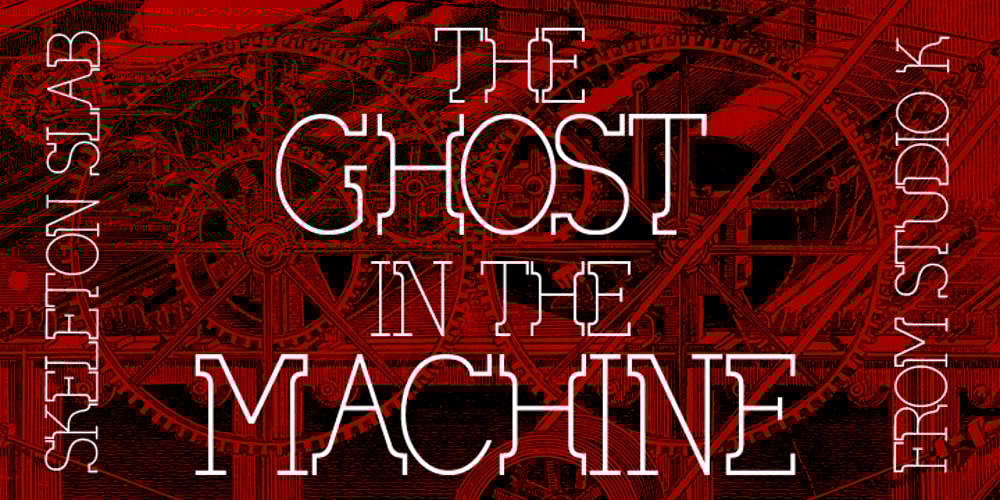
Skeleton Slab
Skeleton Slab font
Skeleton Slab Font Family was designed by Keith Tricker and published by Studio K. Skeleton Slab contains 4 styles and family package options. Skeleton Slab brings a new elegance to a classic form. I was thinking of calling it Ozymanidias, after Shelley’s poem, because it evokes memories of ancient runic inscriptions, but then I thought that was maybe a bit pretentious, and I decided I’d keep it simple and descriptive. Besides, I wasn’t sure how to spell Ozymandias! Skeleton Slab has small caps in place of lower case.